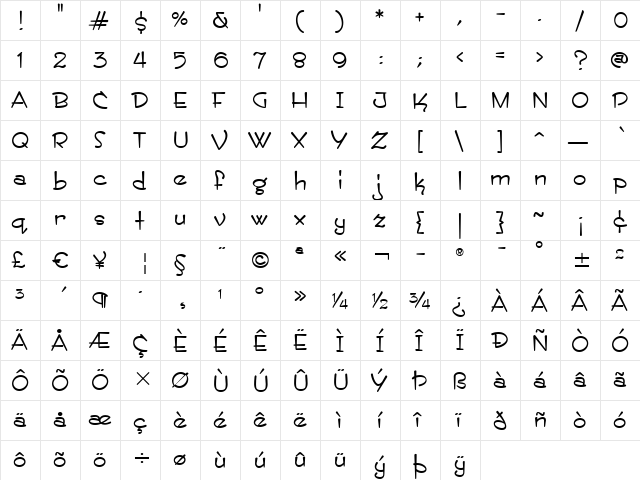
Styleboy ITC Light
Design Context for Styleboy ITC Typeface
Styleboy ITC offers clean, dependable letterforms without strong stylistic allegiance, making it a practical choice for designers who need flexibility. Its slender proportions lend an understated elegance to any composition.
Pro Tip: Pair Styleboy ITC with a font of contrasting weight or personality to build a more expressive typographic hierarchy.